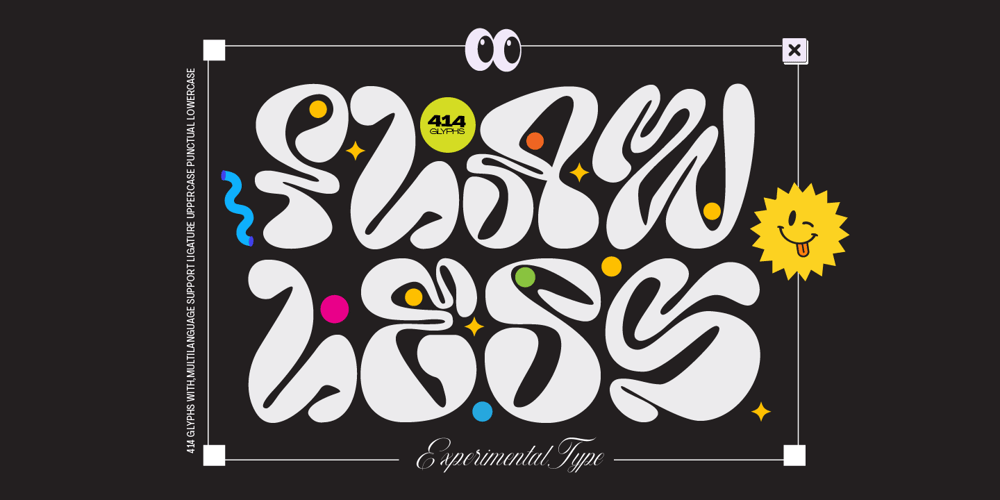
Fd Flawless
Fd Flawless font
Fd Flawless Font Family was designed by Ramandhani Nugraha and published by Fortunes Co. Fd Flawless contains 1 styles and family package options. flawless is a experimental typographic that combines san serif and groovy fonts, with the liquify technique, to create an elastic and fun impression, can be combined with sans serif, fixed width, script fonts, suit for branding, titles, clothing.